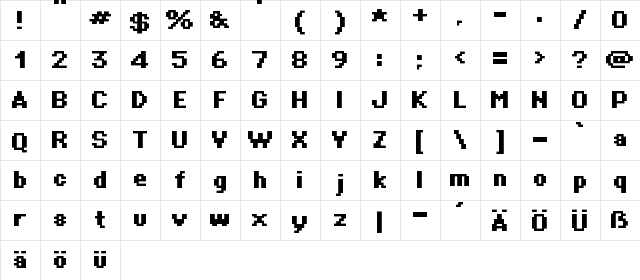
Supertext 01 Bold
Design Context for Supertext 01 Typeface
Supertext 01 offers clean, dependable letterforms without strong stylistic allegiance, making it a practical choice for designers who need flexibility. Its bold stroke weight gives it real presence on the page.